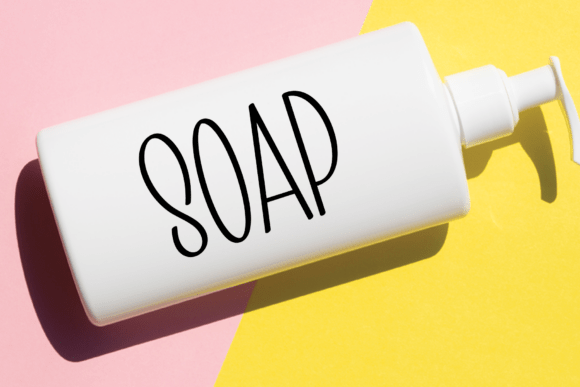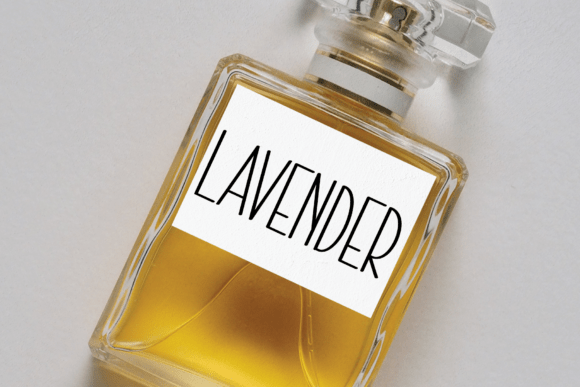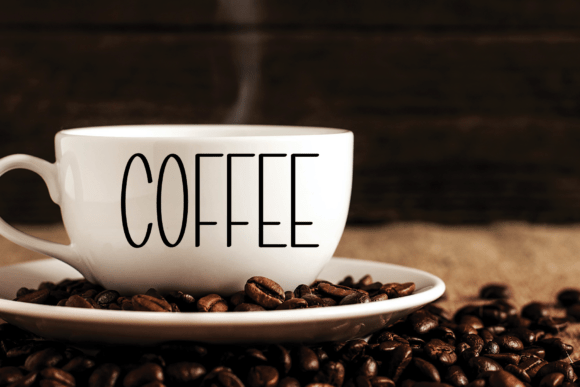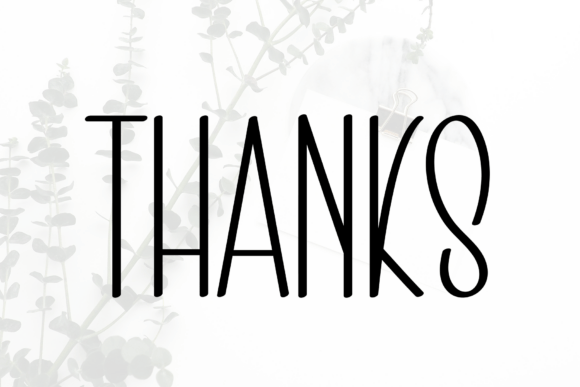
Introduction to Milkycow Font
Remember that moment when you stumbled upon the perfect font for your creative project? The one that effortlessly elevates your design and makes it stand out from the crowd? For many designers, that moment is what makes all the hard work worth it.
One such game-changing font is the Milkycow Font, a charming handwritten font that exudes a sense of heartfelt perfection. Its smooth strokes and organic lines evoke a relaxed atmosphere, making it perfect for a variety of design projects, from branding and invitations to social media graphics.
Key Features of Milkycow Font
- Unique and Creative Design: The Milkycow Font is a one-of-a-kind design resource ideal for creative projects requiring a high-quality, distinctive look.
- Unique Characteristics: The font features a unique blend of modern and vintage elements, making it an excellent choice for designers seeking a distinctive look for their creative project.
Honest Review: Milkycow Font
I recently stumbled upon the Milkycow Font, and I’m excited to share my thoughts on this design resource. As a designer, I’m always on the lookout for high-quality fonts that can elevate my creative projects.
Here are some of the things that stood out to me:
- ✨ Unique and quirky design: The Milkycow Font has a distinctive look that’s perfect for adding a touch of personality to your design.
- ⚠️ Limited character set: The Milkycow Font only includes a limited character set, which may not be suitable for longer pieces of text.
- ⚠️ Not ideal for small text: Due to its quirky design, the Milkycow Font may not be the best choice for small text or fine typography.
Overall, I’m impressed with the Milkycow Font’s unique design and high-quality vector graphics. While it may have some limitations, it’s a great addition to any design project that requires a bit of whimsy and personality. Plus, the transparent background makes it easy to use in a variety of creative contexts.
Tips for Getting the Most Out of Milkycow Font
For a high-quality design, use the Milkycow Font in conjunction with a transparent background. This will allow the font to stand out and create a clean, modern look. Additionally, experiment with different font sizes and styles to add visual interest to your design.
The Milkycow Font is a versatile design resource that can be used for a variety of creative projects, including logos, brochures, and social media graphics. Its high-quality design and transparent background make it an ideal choice for designers looking to create a professional-looking design.